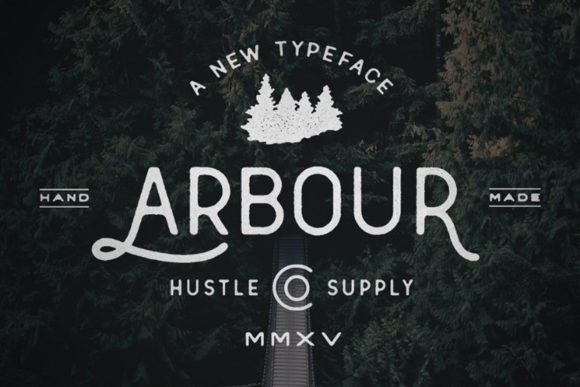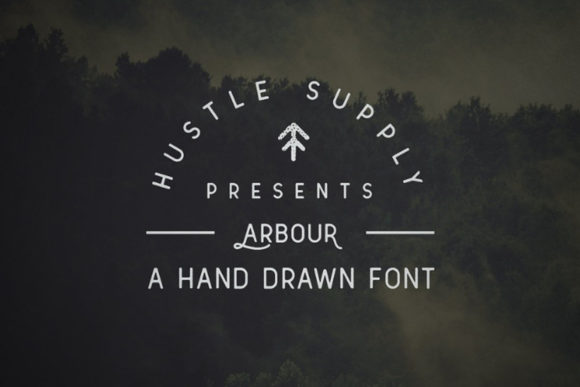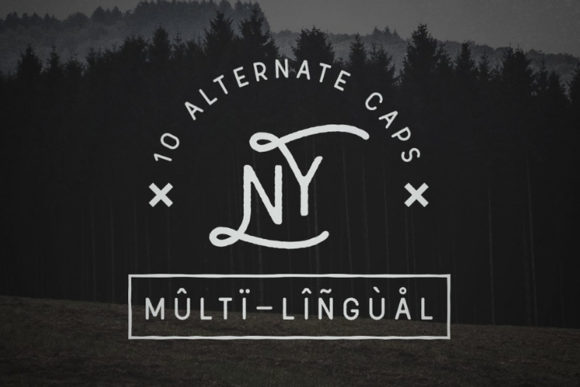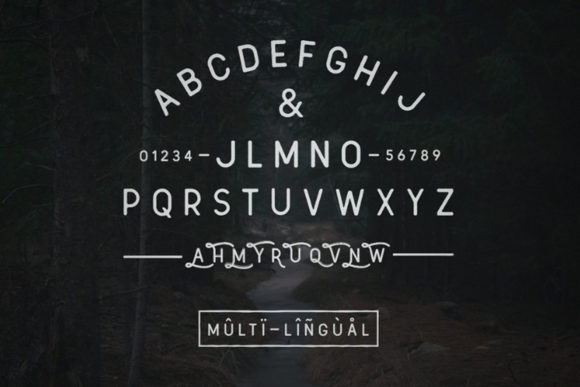
Arbour Font: Unique & Stylish Sans Serif for Logo Design & Branding
About the Arbour Font
Crafted with precision, the Arbour Font is ready to bring your ideas to life. Arbour simplifies elegance into one truly outstanding sans serif font. It maintains its classy calligraphic influences while feeling contemporary and fresh. This versatility will appeal to a wide range of crafty ideas, from letterheads and titles, to stationery.
Arbour’s elegant yet contemporary feel makes it ideal for headlines, logos, and short-form text in branding materials, particularly for projects emphasizing sophistication and quality. It works exceptionally well on packaging design, especially for high-end products or those with a handcrafted aesthetic. However, its calligraphic influences might hinder readability in large blocks of text or UI applications.
Consider pairing Arbour with a clean sans-serif like Lato for body copy or a geometric sans-serif like Futura for a more modern feel. For a touch of contrast, a delicate serif like Garamond could enhance its inherent elegance, while a playful script font would add a unique dimension to invitations or other special projects.
Arbour projects an air of refined modernity, its personality being both sophisticated and approachable. This makes it a versatile choice for brands that wish to convey a balance of elegance and approachability.